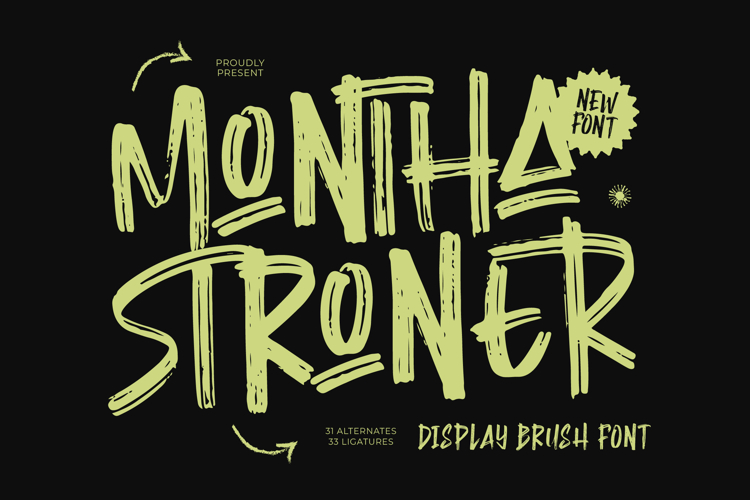
Montha Stroner Display Brush Font
Montha Stroner - Display Brush Font , from Letterena, is a Luxury Script font, suitable for any projects such as: logos, branding projects, homeware designs, product packaging, mugs, quotes, posters, shopping bags, t-shirts, book covers, name card, invitation cards, greeting cards, label, photography, watermark, special events, and all your other luxury and beautiful projects that need a Luxury Script taste.
33 Ligature 31 Alternate & Swashes